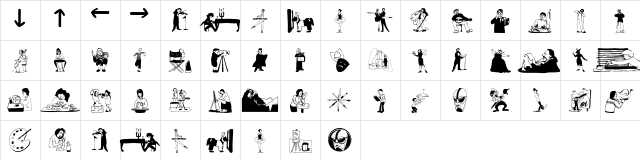
DramaticArts Regular
Design Context for DramaticArts Typeface
DramaticArts is a composed and adaptable typeface that performs quietly and consistently across a wide range of design contexts.